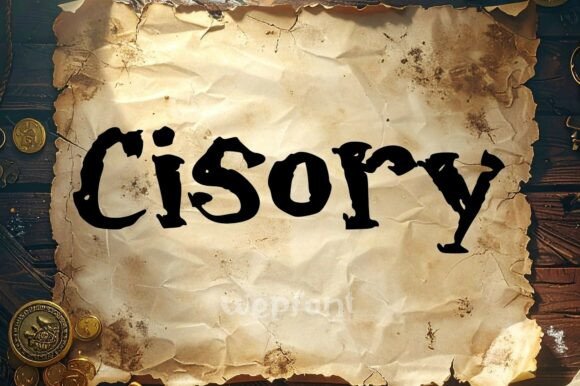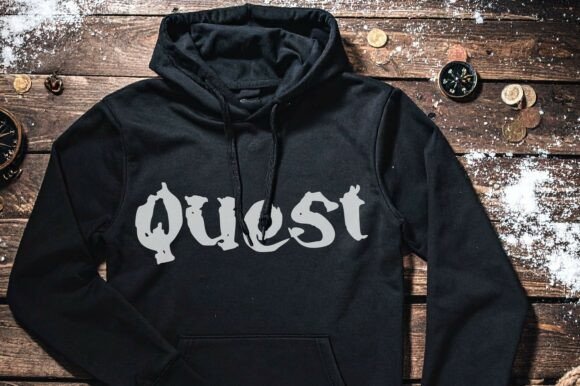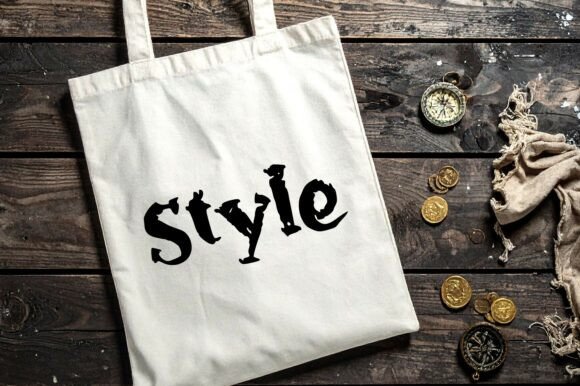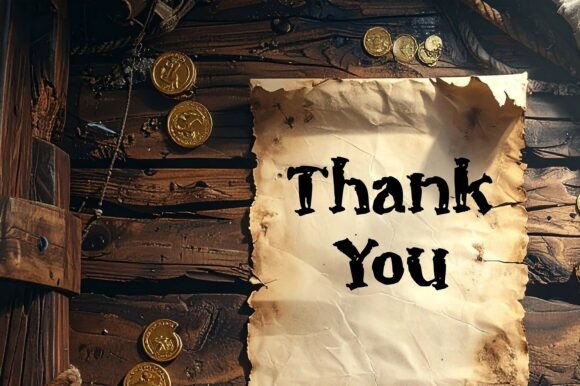
Unleash the Adventure: Discover the Cisory Font
Embark on a journey to a forgotten realm with the Cisory font, a rugged and expressive display typeface designed for storytellers and world-builders. This font is not just a collection of letters; it’s a key to unlock the doors of imagination, transporting you and your audience to a world of mystery, adventure, and epic tales. Featuring irregular, hand-carved edges and a heavy, weathered silhouette, the Cisory font captures the essence of ancient parchment maps, hidden treasures, and the whispers of the past.
The Essence of Cisory: A Font Weighted by History
The Cisory typeface feels weighted by history, as if each letter has been chiseled from stone or inked on ancient scrolls. Its rugged appearance is reminiscent of a well-worn, leather-bound book or a tattered map that has guided explorers through uncharted territories. This font is the perfect choice for projects that require a sense of authenticity and a dash of adventure, such as fantasy book covers, adventure-themed board games, and cinematic titles that need to convey a sense of mystery and epic scale.
Where Cisory Shines: Ideal Applications for the Font
The Cisory font shines when placed against textured backgrounds like old paper, worn leather, or dark wood. The contrast between the font’s rugged edges and the texture of the background creates a visually stunning effect, evoking the feeling of an ancient artifact or a mysterious relic. This font is an ideal hero element for:
- “Escape room” branding: Create an immersive experience with Cisory as the centerpiece of your branding, inviting participants to unravel mysteries and uncover hidden secrets.
- Museum exhibition posters: Add a touch of history and sophistication to your exhibition posters, enticing visitors to explore the wonders within.
- Artisanal product labels: Boast a rich heritage with Cisory, perfect for product labels that highlight craftsmanship, tradition, and a connection to the past.
Pairing Cisory with Other Fonts: Tips and Tricks
To let the Cisory typeface take center stage, pair it with clean, minimalist secondary fonts that won’t compete with its bold, jagged personality. This contrast will create visual harmony, allowing the Cisory font to be the focal point while maintaining readability and balance in your design. Some suggestions for pairing fonts include:
- Use a sans-serif font for body text to provide a clean and modern contrast to Cisory’s ruggedness.
- Choose a serif font with a similar vintage feel to Cisory for a more cohesive look.
- Experiment with script fonts to add a touch of elegance and sophistication to your design.
Designing with Cisory: Endless Possibilities
Whether you are designing for a historical documentary or a pirate-themed branding project, the Cisory font provides the grit and authenticity needed to transport your audience to another world. Its versatility allows it to be used in a wide range of applications, from:
- Book covers and publishing: Add a touch of adventure and mystery to your book covers, inviting readers to embark on a journey.
- Branding and packaging: Create a unique and memorable brand identity with Cisory, perfect for products that boast a rich heritage or a sense of adventure.
- Advertising and marketing: Use Cisory to create eye-catching advertisements and marketing materials that evoke a sense of excitement and exploration.
The Cisory font is a powerful tool for designers and crafters looking to add a touch of adventure and mystery to their projects. With its rugged, hand-carved edges and weathered silhouette, Cisory captures the essence of ancient artifacts and forgotten realms. By pairing it with clean, minimalist fonts and textured backgrounds, you can unlock the full potential of this extraordinary font and transport your audience to a world of wonder and discovery.